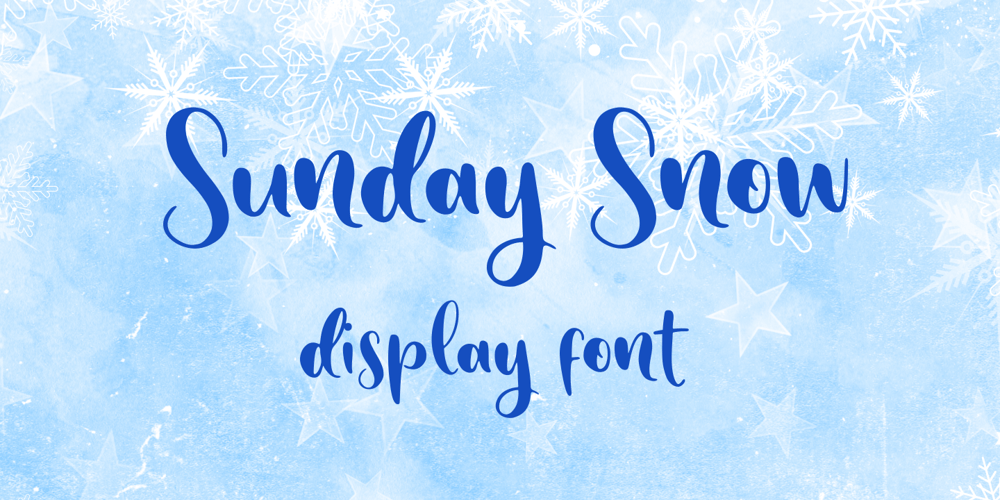
Sunday Snow Font Family was designed by Muhamad Yusron Billah and published by Sronstudio. Sunday Snow contains 1 styles and family package options. Sunday Snow is a fun Handwritten Font, this font Is perfect for product packaging, product designs, label, photography, watermark, special events, or anything.Sunday Snow comes with uppercase and lowercase letters, multilingual symbols, numerals, punctuation.If you have any questions please don’t hesitate to drop me a message :)Thank You, Sronstudio